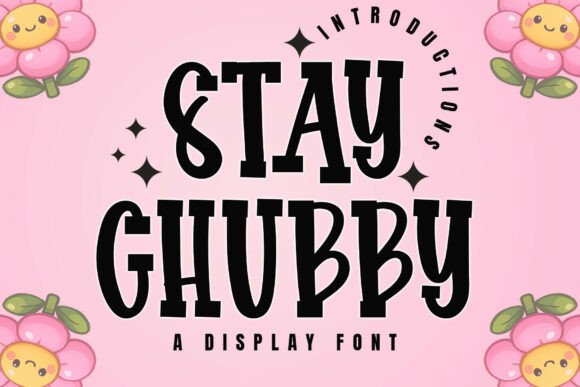
Stay Chubby: A Friendly Font for Creative Expression
Stay Chubby is a distinctive display font that brings a warm, hand-sculpted personality to any design. Its organic geometry and soft, rounded terminals create an artisanal feel that feels both custom and grounded. This font stands out as a powerful tool for those who want to convey approachability and creativity in their visual communication.
Whether you're designing for children's apparel, crafting a logo, or creating editorial content, Stay Chubby offers a unique aesthetic that can elevate your work. It’s not just about looking good—it’s about making a statement that resonates with your audience. The font’s friendly character makes it ideal for projects that aim to connect emotionally while maintaining a strong visual presence.
Why Stay Chubby Matters for Designers and Branders
For designers and branders, the right font can make all the difference. Stay Chubby provides a balance between playfulness and professionalism, making it suitable for a wide range of applications. Its bold, rounded shapes are easy on the eyes and can help draw attention without overwhelming the viewer.
This font is particularly useful when you need to communicate a sense of warmth and accessibility. In branding, for example, using Stay Chubby can help establish a more relatable identity, especially for businesses targeting families or creative communities. It’s a great choice for logos that want to feel personal yet impactful.
Practical Benefits of Using Stay Chubby
One of the key advantages of Stay Chubby is its versatility. It works well in both digital and print formats, making it a reliable option for various projects. Whether you’re creating social media graphics, packaging designs, or editorial headlines, this font can adapt to different contexts while maintaining its distinct character.
Another benefit is the time it saves in the design process. Because of its clear legibility and friendly appearance, it reduces the need for extensive adjustments or additional design elements to convey the desired tone. This efficiency can be especially valuable for busy professionals or small businesses looking to streamline their workflow.
Who Can Benefit from Stay Chubby?
Stay Chubby is particularly suited for creators and entrepreneurs in the children’s market. For example, a children’s clothing brand might use this font to create labels, tags, or promotional materials that feel inviting and playful. The font’s soft edges and friendly look align perfectly with the target audience, helping to build trust and recognition.
Graphic designers and illustrators may also find value in using Stay Chubby for editorial projects, such as magazine covers or book titles. Its bold yet approachable style can add a touch of whimsy without sacrificing readability. This makes it an excellent choice for content that aims to engage readers in a lighthearted way.
Real-World Applications of Stay Chubby
Consider a social media campaign for a local bakery. Using Stay Chubby in the headline could help create a welcoming vibe that encourages engagement. The font’s rounded shapes and friendly appearance can make the message feel more personal, which is crucial for building a loyal following.
In another scenario, a children’s book publisher might use Stay Chubby for chapter headings or title pages. The font’s organic feel can enhance the storytelling experience by adding a tactile, almost handmade quality to the text. This subtle detail can make a big difference in how the content is perceived and enjoyed.
Limitations and Considerations
While Stay Chubby is a powerful tool, it’s important to consider its suitability for different projects. For instance, it may not be the best choice for formal documents or professional reports where a more traditional font would be expected. In such cases, the font’s playful nature could undermine the intended tone.
Additionally, users should test the font in different sizes and contexts to ensure it remains legible and effective. While it excels in larger displays, smaller text may require adjustments to maintain clarity. These considerations can help ensure that the font is used in the most impactful way possible.
How Stay Chubby Supports Creativity and Communication
For creators, Stay Chubby can serve as a source of inspiration. Its unique design encourages experimentation and can spark new ideas for visual concepts. By incorporating this font into their work, designers can explore fresh approaches to typography that reflect their personal style and creative vision.
Moreover, the font’s ability to convey emotion through shape and form can enhance communication. In marketing materials, for example, using Stay Chubby can help express a brand’s values more effectively. It allows for a more expressive and engaging presentation that can resonate with audiences on a deeper level.
Final Thoughts on Stay Chubby
Stay Chubby is more than just a font—it’s a design element that can bring warmth, creativity, and personality to any project. Its friendly, hand-sculpted look makes it ideal for a variety of applications, from branding to editorial work. By understanding its strengths and limitations, users can make informed decisions about when and how to use it effectively.
Whether you're a designer, marketer, or business owner, Stay Chubby offers a versatile and expressive solution that can help you stand out in a competitive landscape. With its balanced blend of creativity and functionality, it’s a font worth considering for any project that seeks to connect with its audience in a meaningful way.